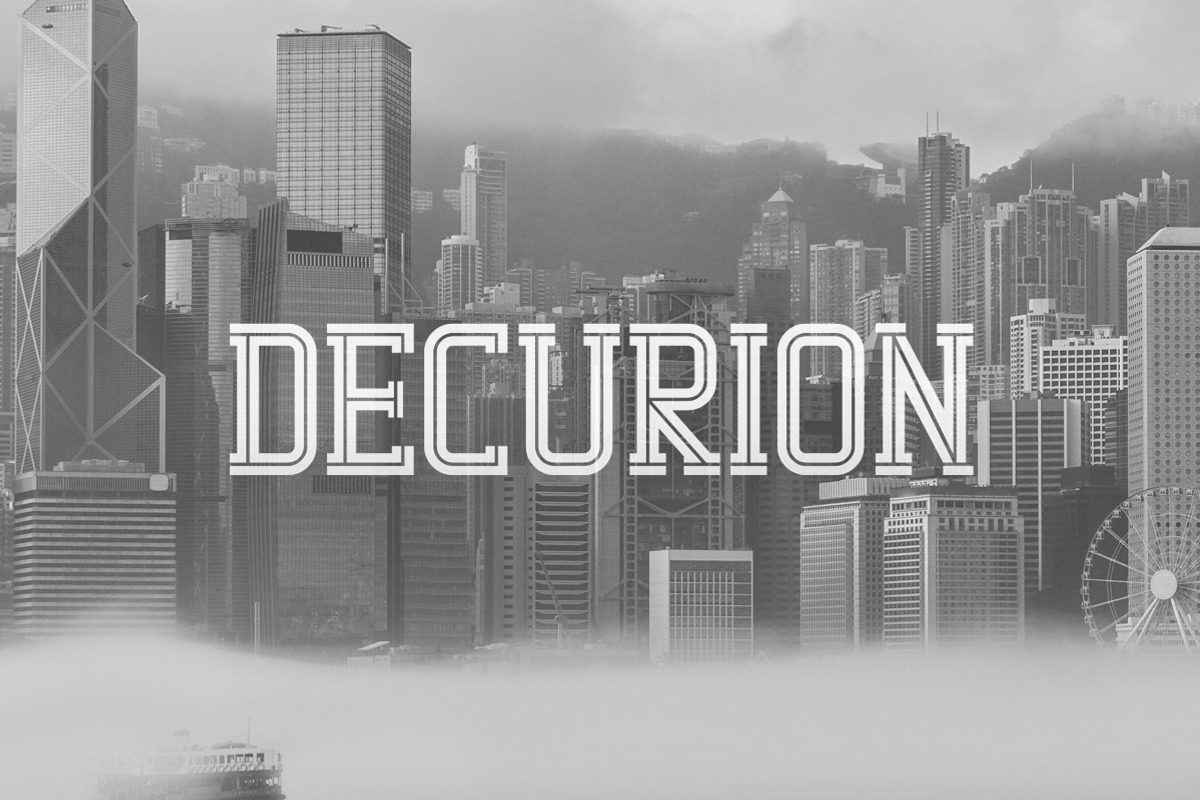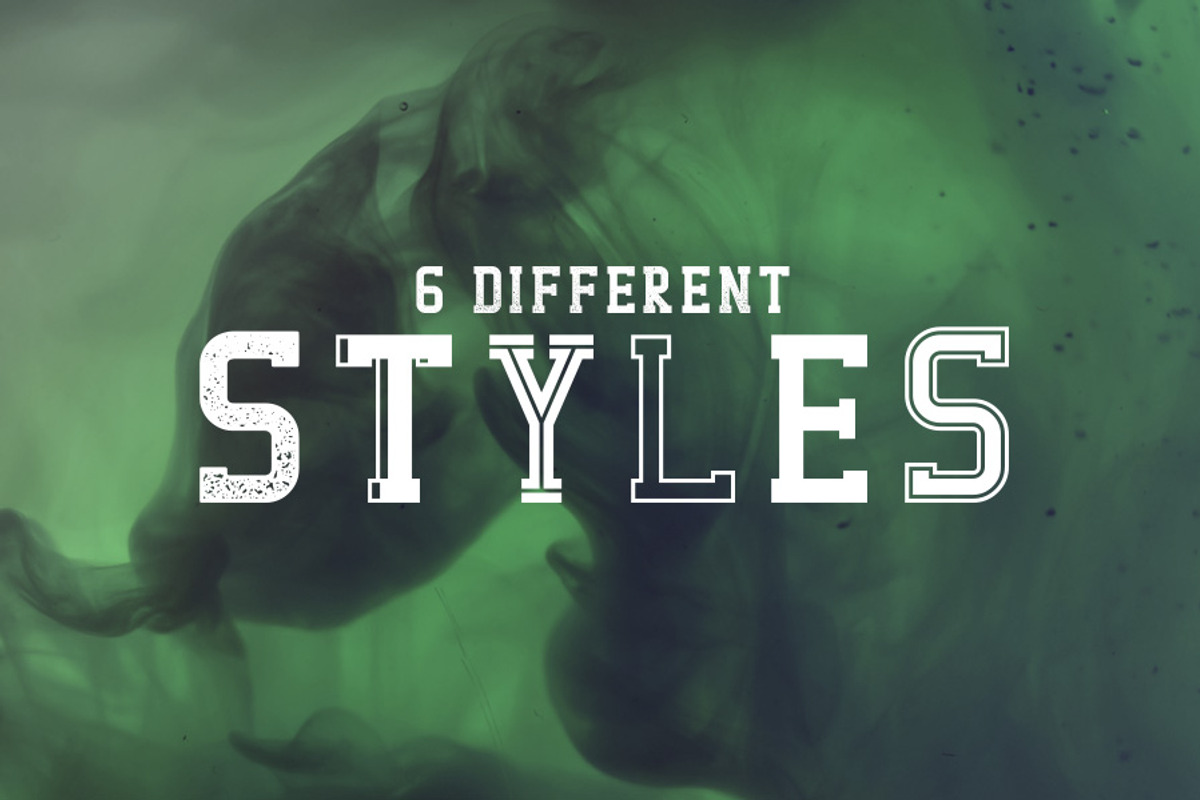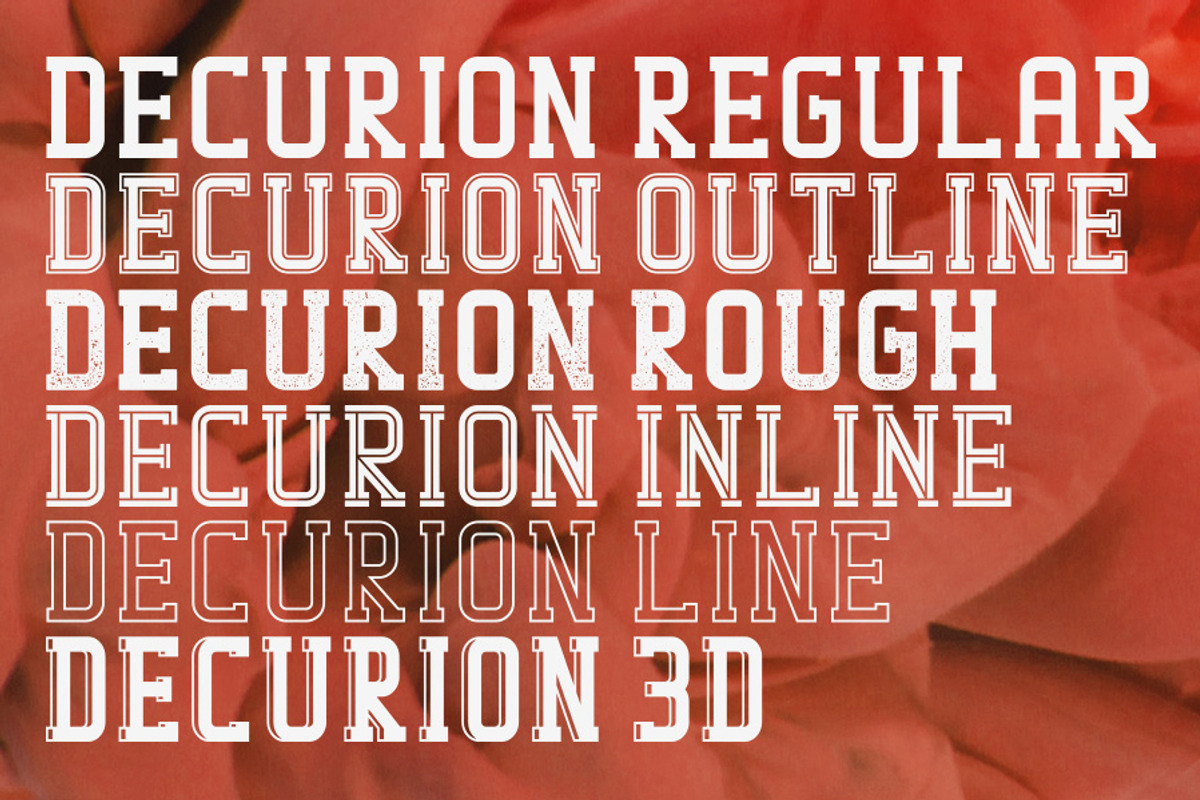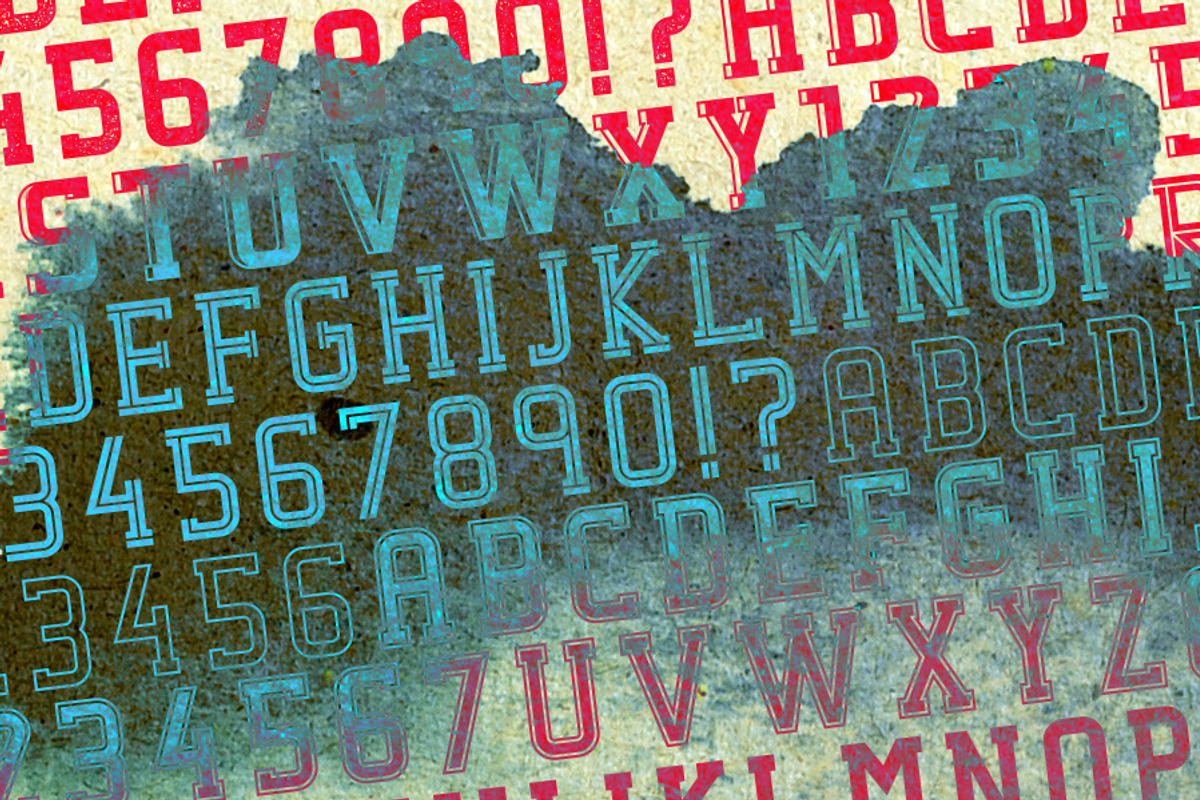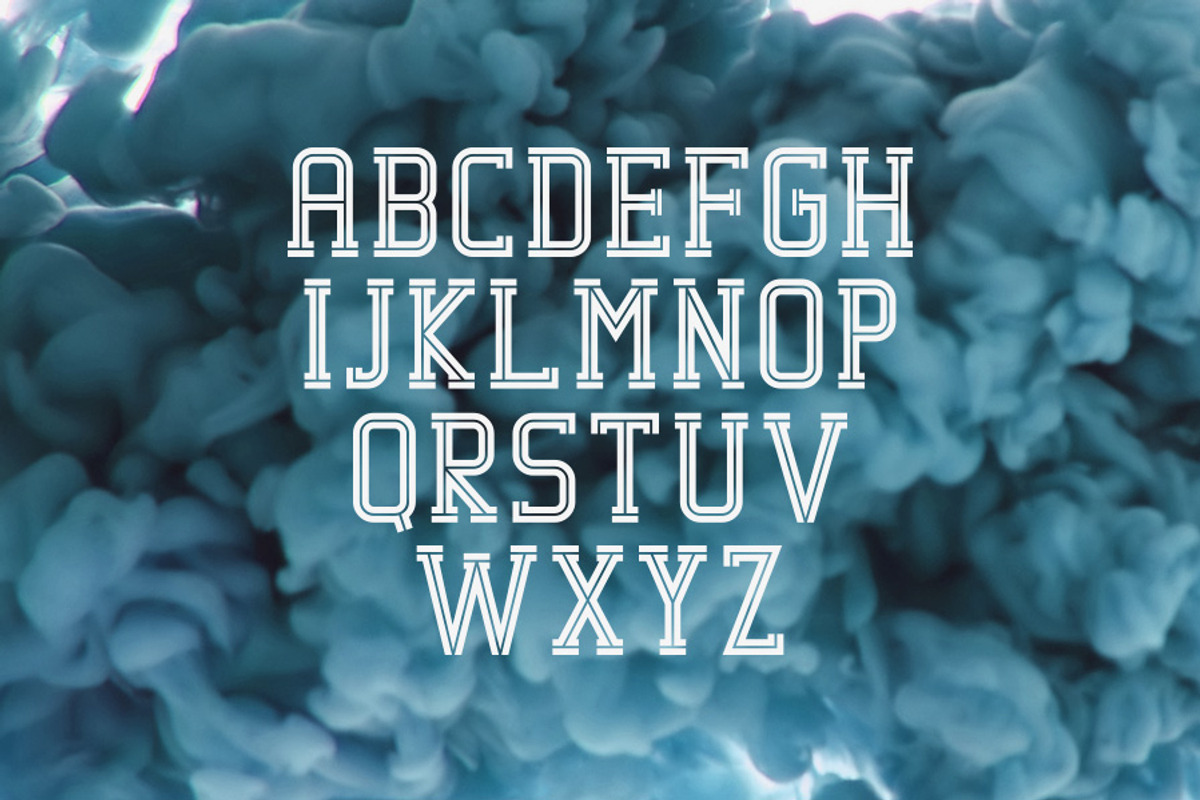
Decurion Typeface
Decurion Typeface by Tugcu Design Co. is a font selected for branding, posters, packaging, typography.
- It includes uppercase letters, numbers and some punctuation.
Decurion Typeface by Tugcu Design Co. fits naturally into Branding, posters, packaging, typography.